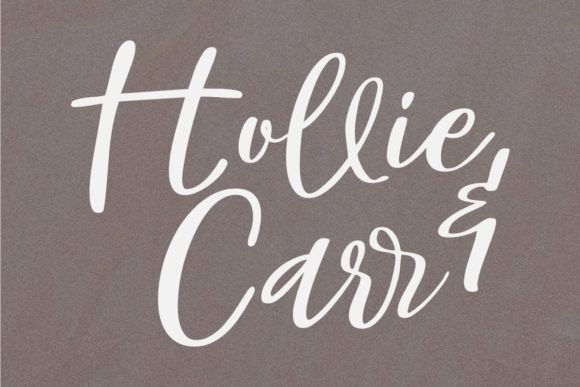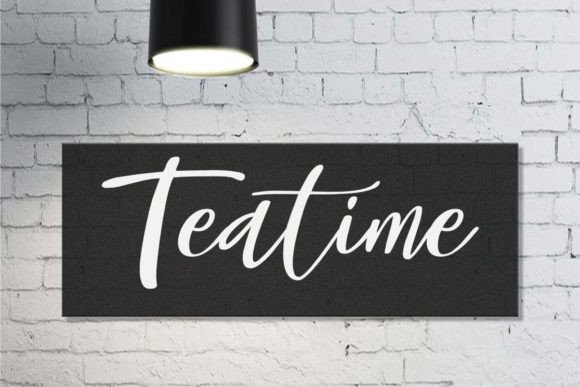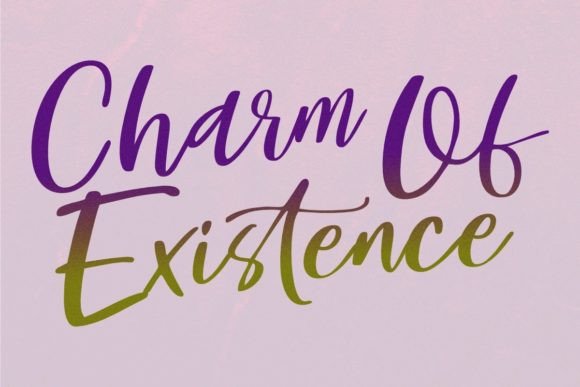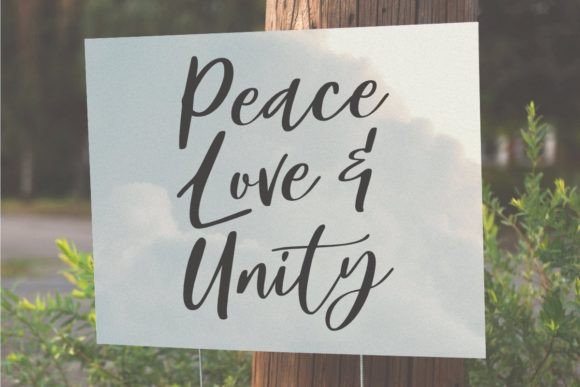
Tobey Font
About Tobey Font
Tobey is a playful handwritten font that radiates happiness with its cute and fun design. The essence of Tobey lies in its playful and whimsical style, making it an excellent choice for projects that seek to convey a lighthearted and cheerful atmosphere.
The playfulness of Tobey is evident in its handwritten charm. The characters dance with a joyful energy, exuding a sense of fun and spontaneity. This makes Tobey an ideal font for creative endeavors that aim to evoke a positive and happy response.
The cuteness of Tobey adds to its overall appeal. The font is designed to bring a smile to the reader’s face, making it suitable for a variety of applications where a touch of adorable charm is desired. Whether used in branding, posters, social media, or any other design context, Tobey injects a sense of happiness.
The fun nature of Tobey makes it versatile and adaptable to a range of creative projects. Its ability to convey a sense of joy makes it suitable for children’s designs, playful branding, invitations, and any project where a carefree and spirited font is needed.